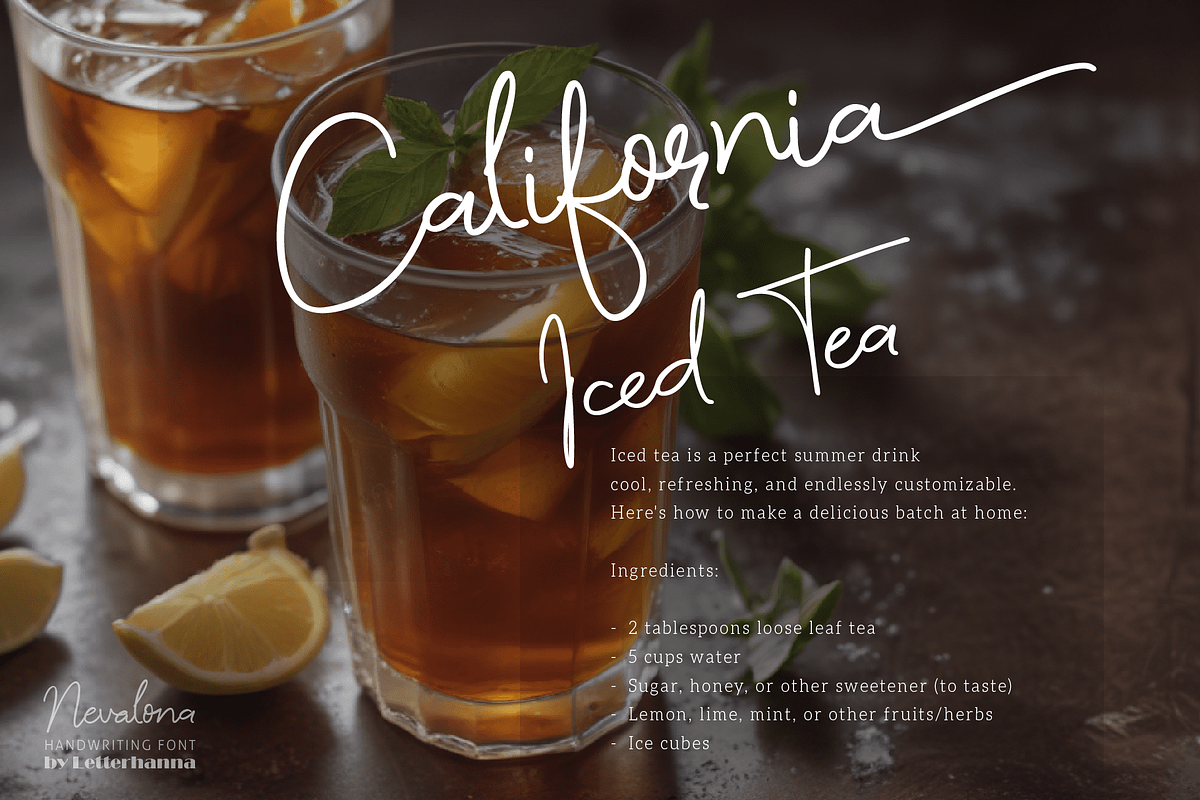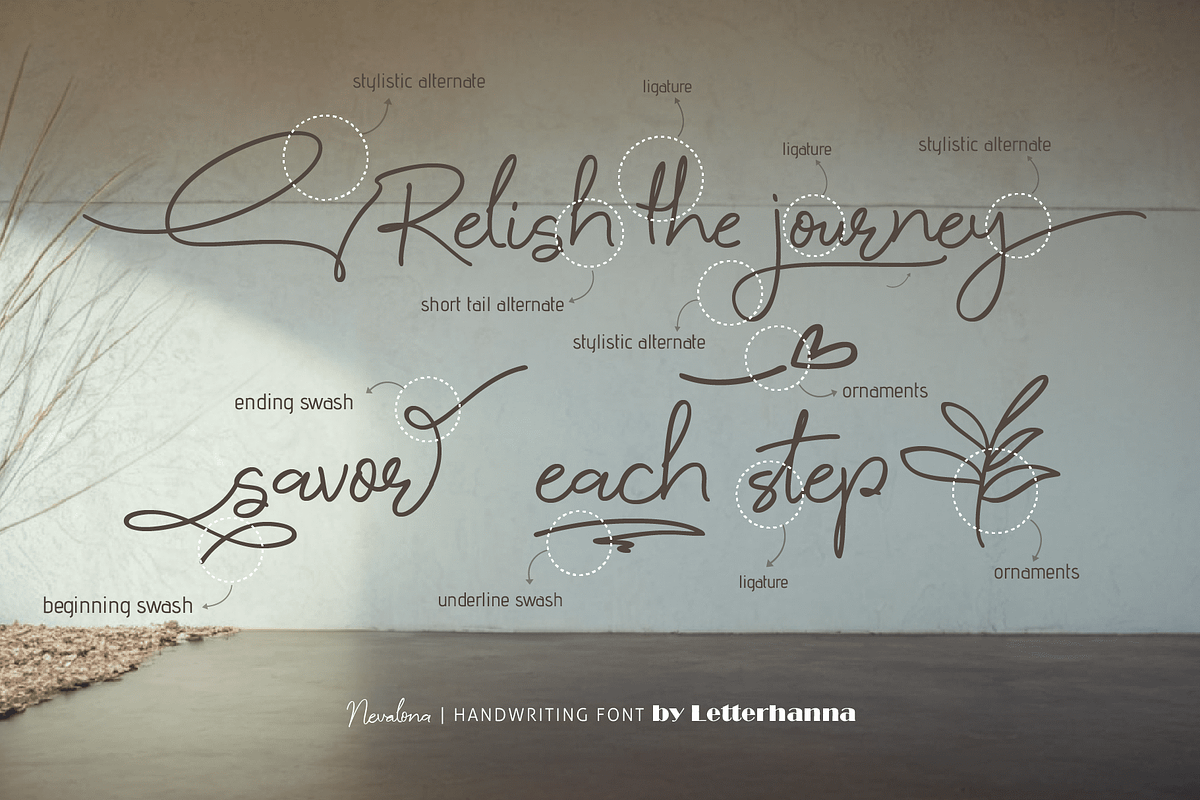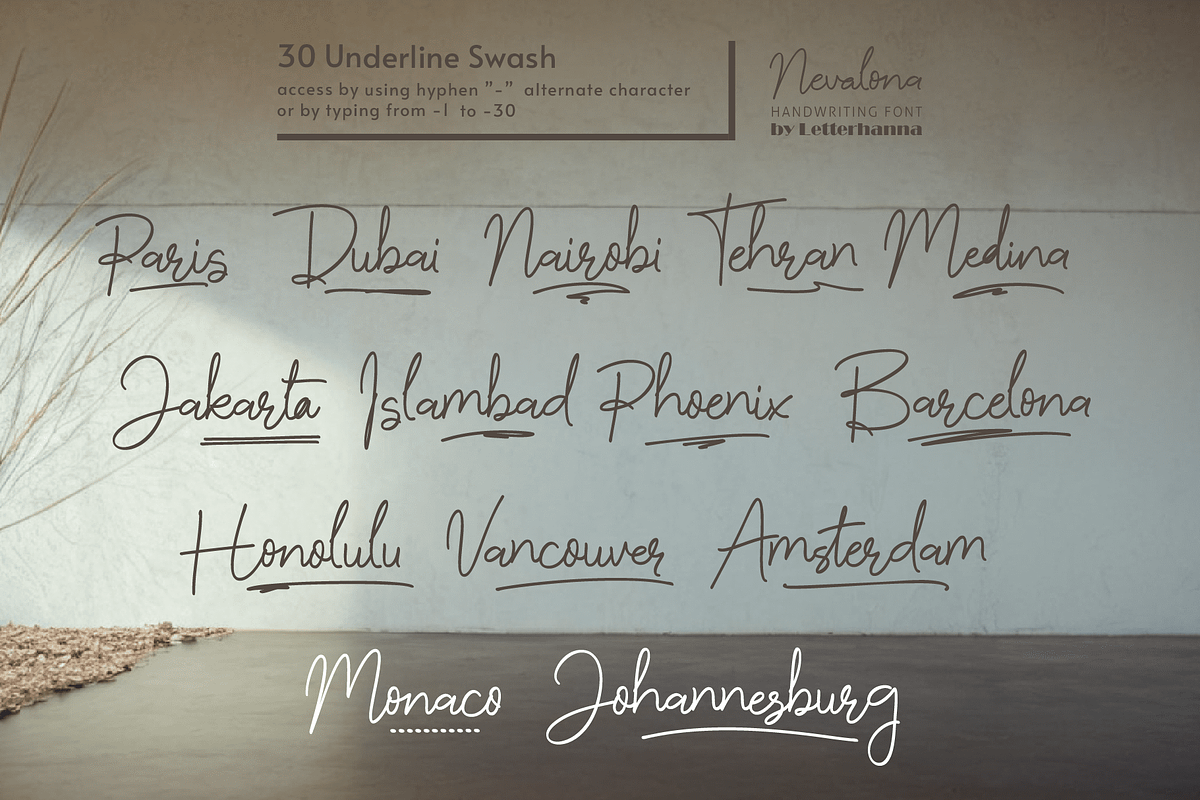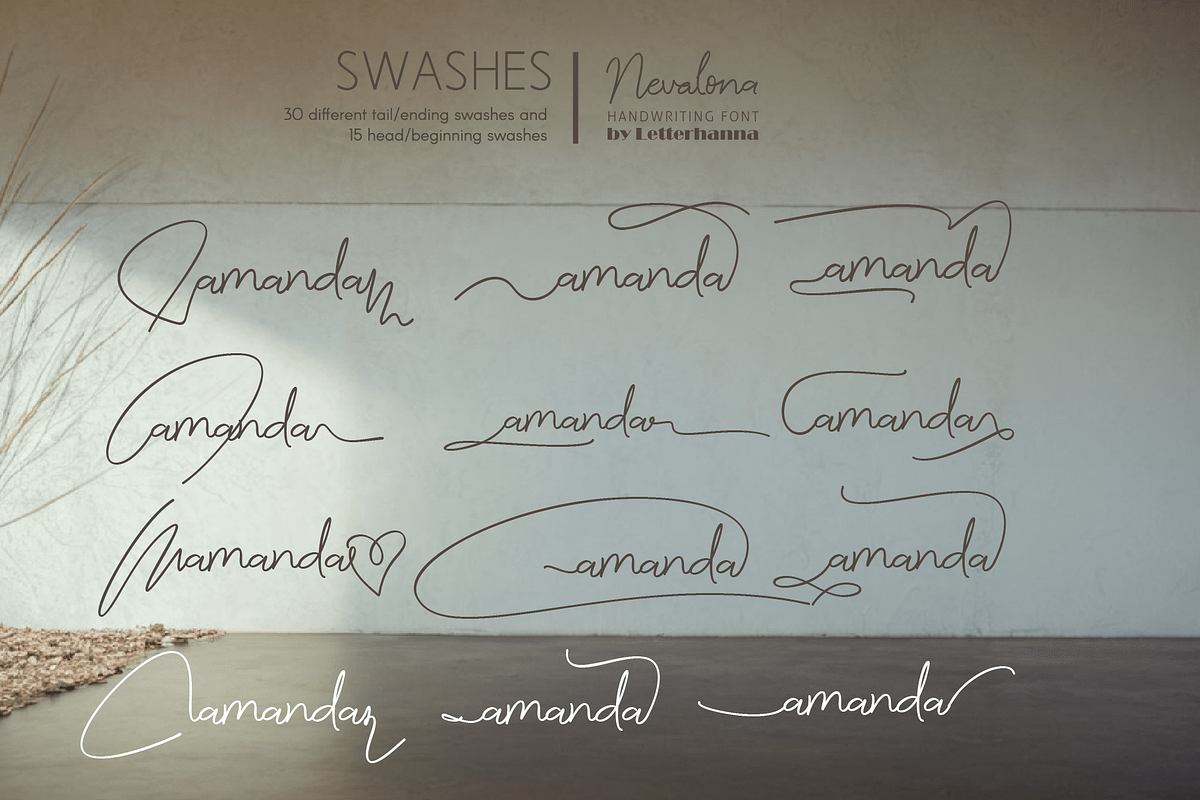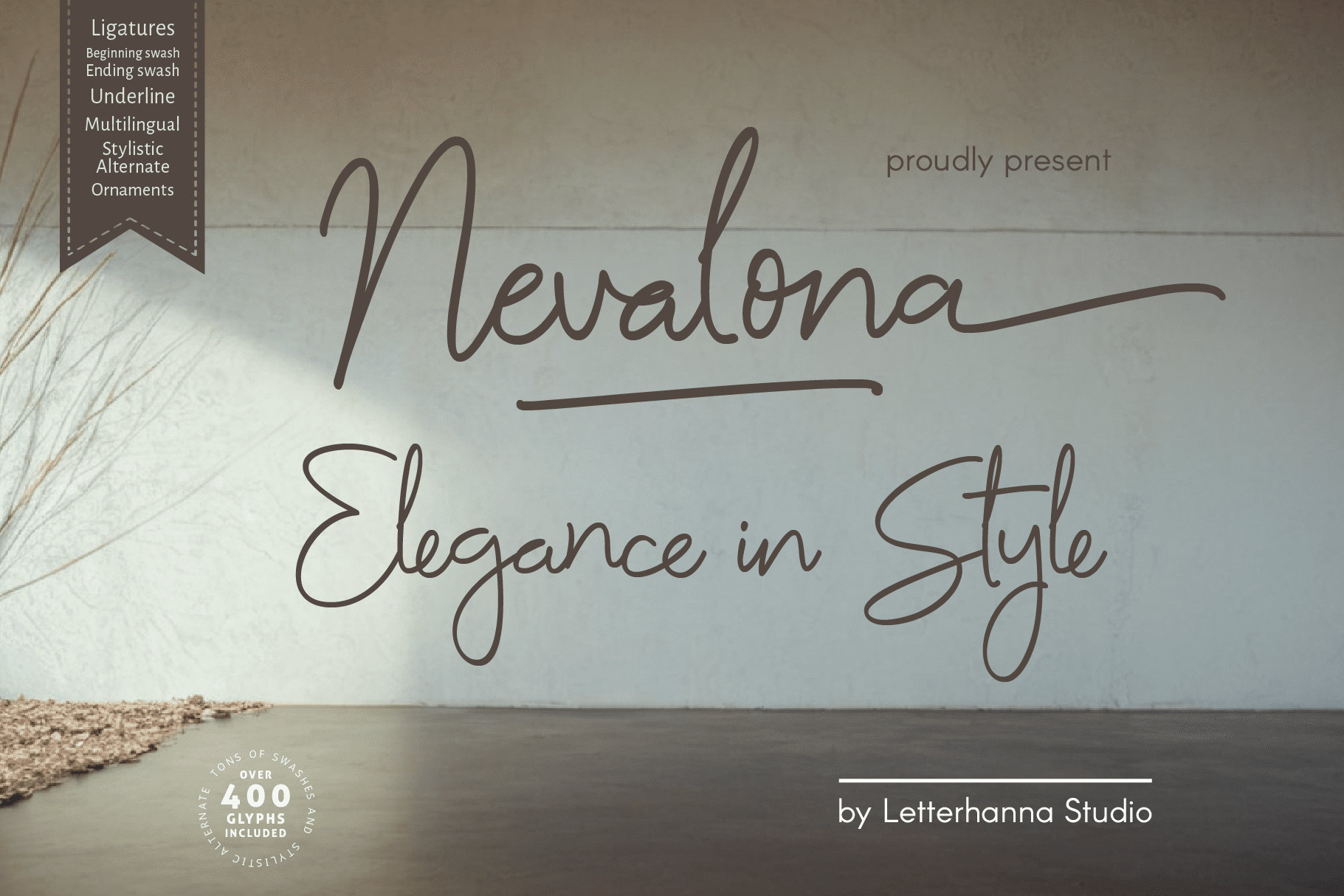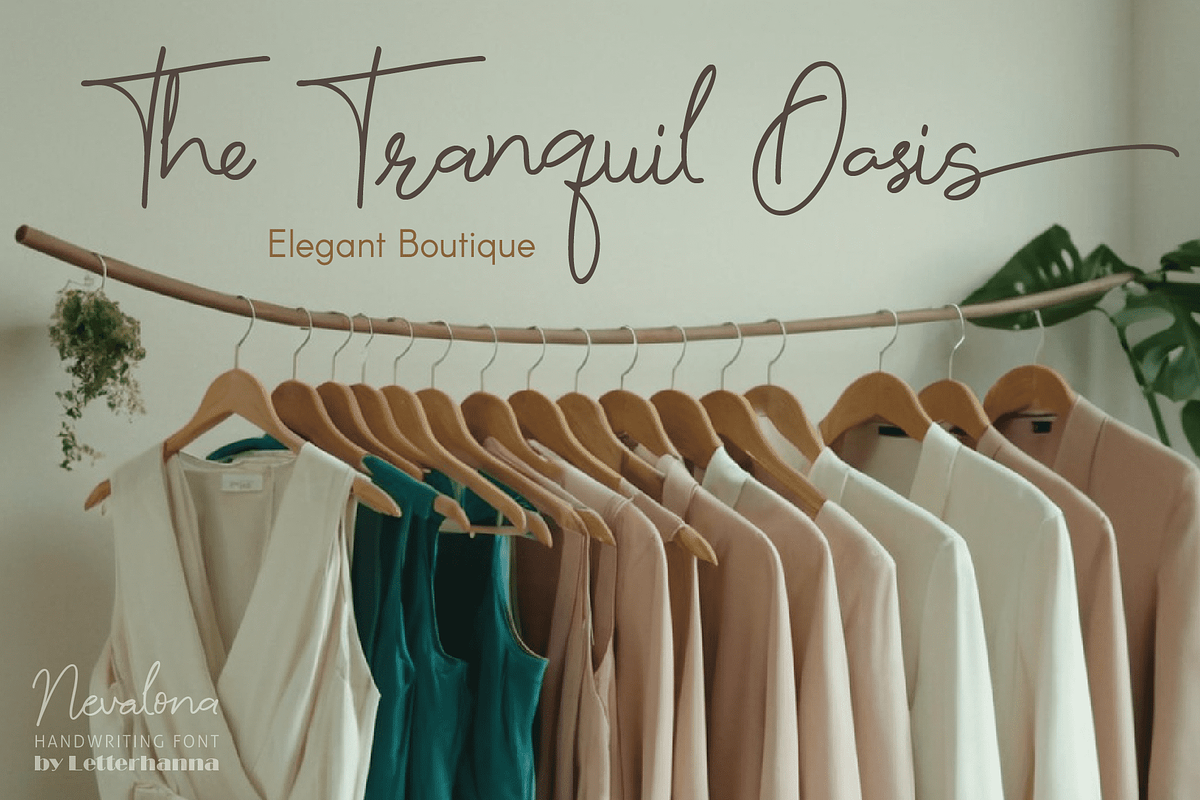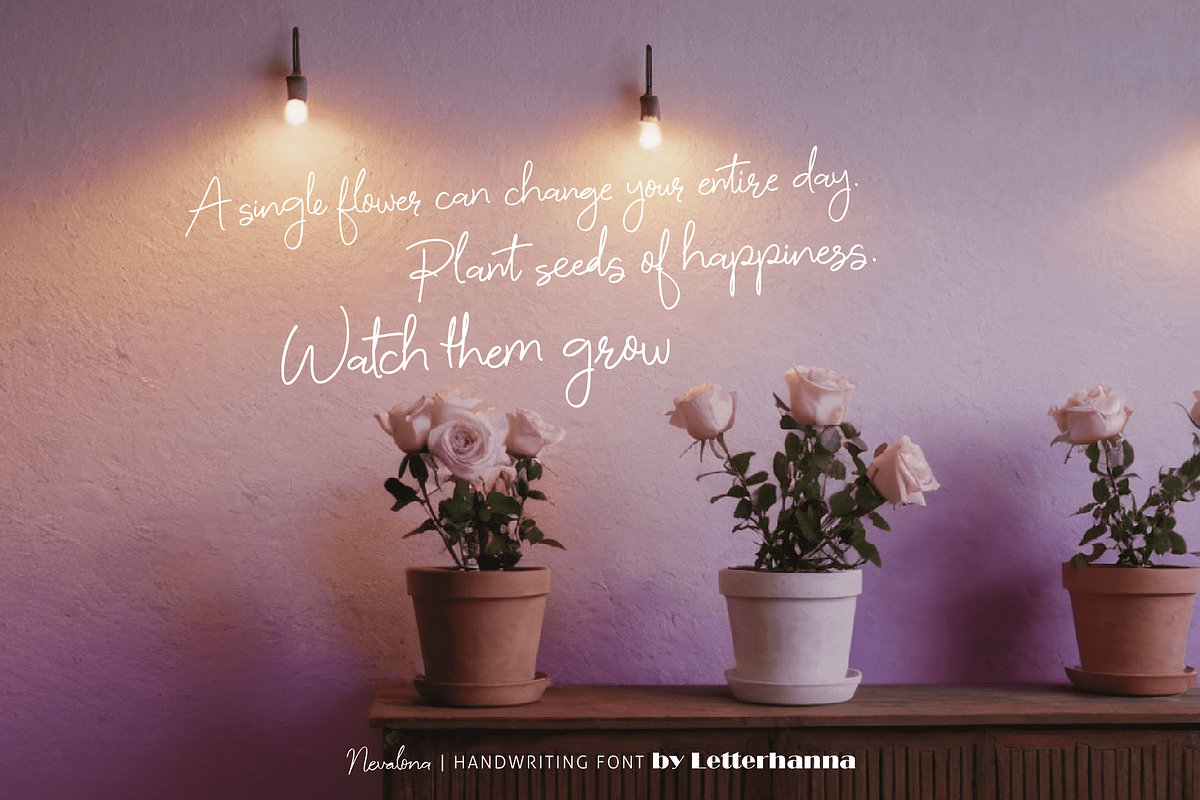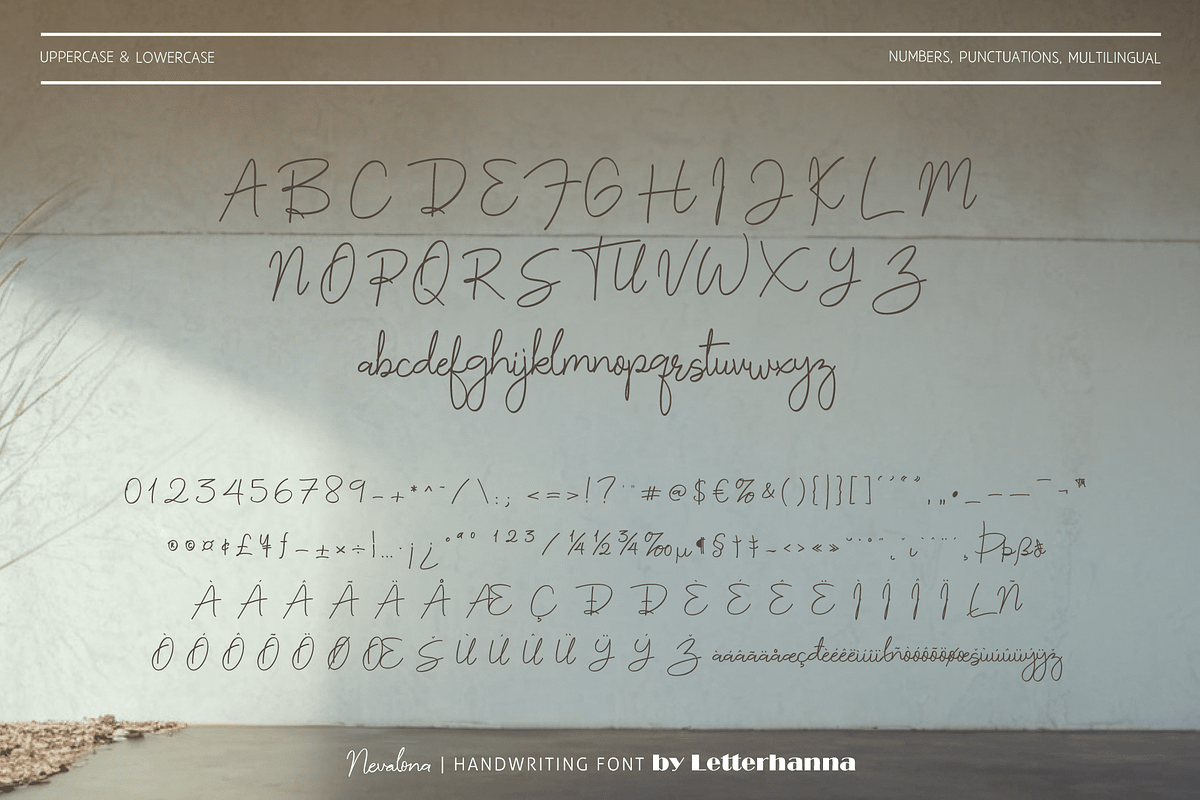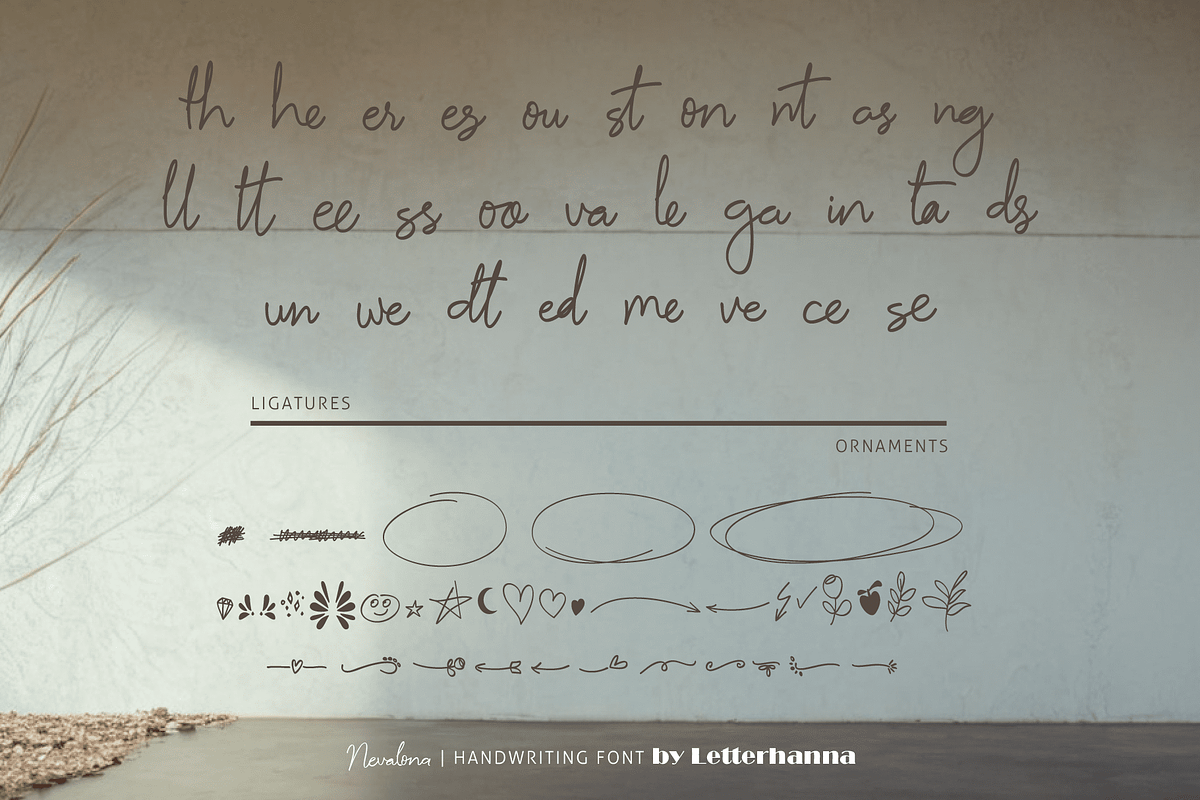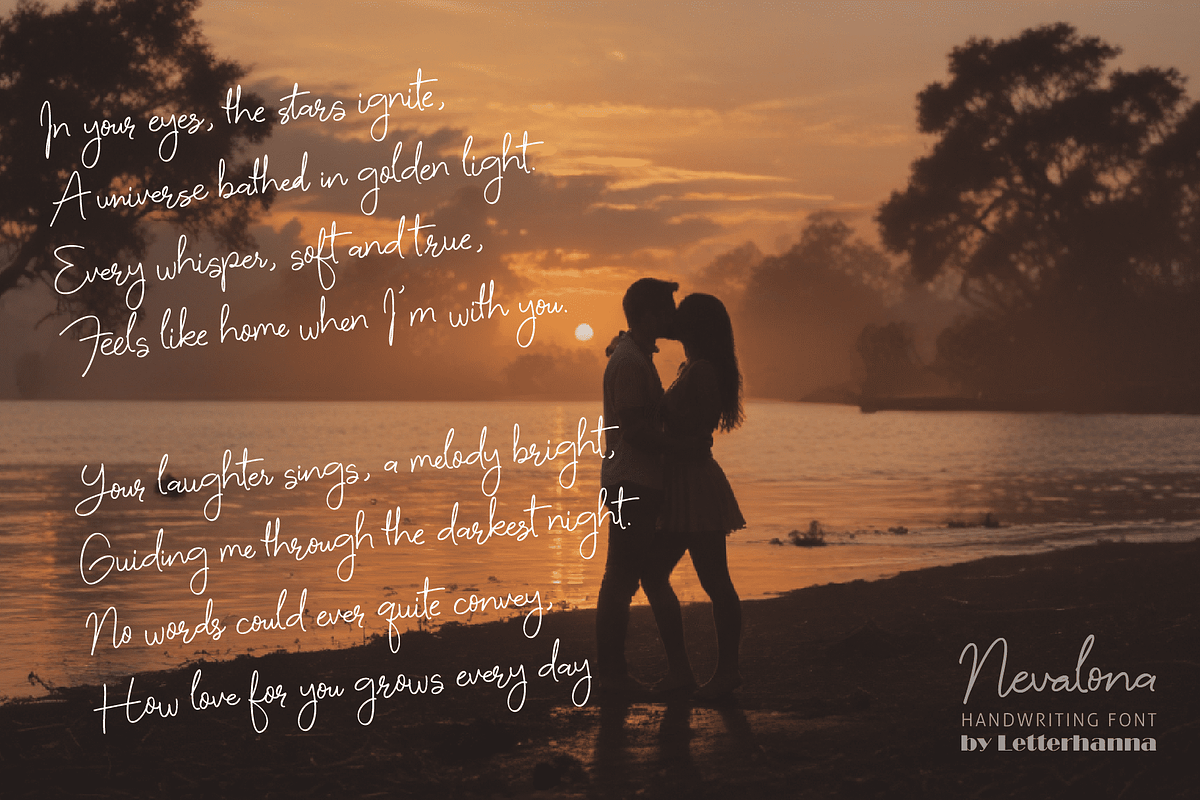
Nevalona Font
Introducing Nevalona, a beautifully crafted handwriting script font that blends elegance with a modern touch. With its smooth, flowing strokes and natural penmanship, Nevalona captures the essence of effortless sophistication, making it perfect for branding, invitations, logos, and creative projects. Let your words shine with a font that feels both personal and timeless.
Easy Access to Glyphs and Swashes
Gain easy access to all alternate glyphs, swashes, ornaments, and underlines by simply using ligatures. You can try them out yourself in the font preview tool on our website, letterhanna.com.
Accessing Swashes and Ornaments
Underline Swashes: Use a hyphen symbol "-" followed by a number between 1 and 30. For example, type "-3", "-22", or "-17" to get various underline swashes.
Head/Beginning Swashes: Use a dollar sign "$" followed by a number between 1 and 9. For example, type "$2" or "$8" to get different head/beginning swashes.
Tail/Ending Swashes: Use a percent sign "%" followed by a number between 1 and 30. For example, type "%3" or "%15" to get various tail/ending swashes.
Ornaments: Use an "at" symbol "@" followed by a number between 1 and 26. For example, type "@4" or "@13" to get different ornaments.
PUA Encoding for Ease of Use, which means you can access all the glyphs and swashes with ease!
Uppercase and lowercase letters
Numbers and punctuation marks
Beginning and ending swashes
Underline swashes
Ornaments
Easy access to swashes using ligatures